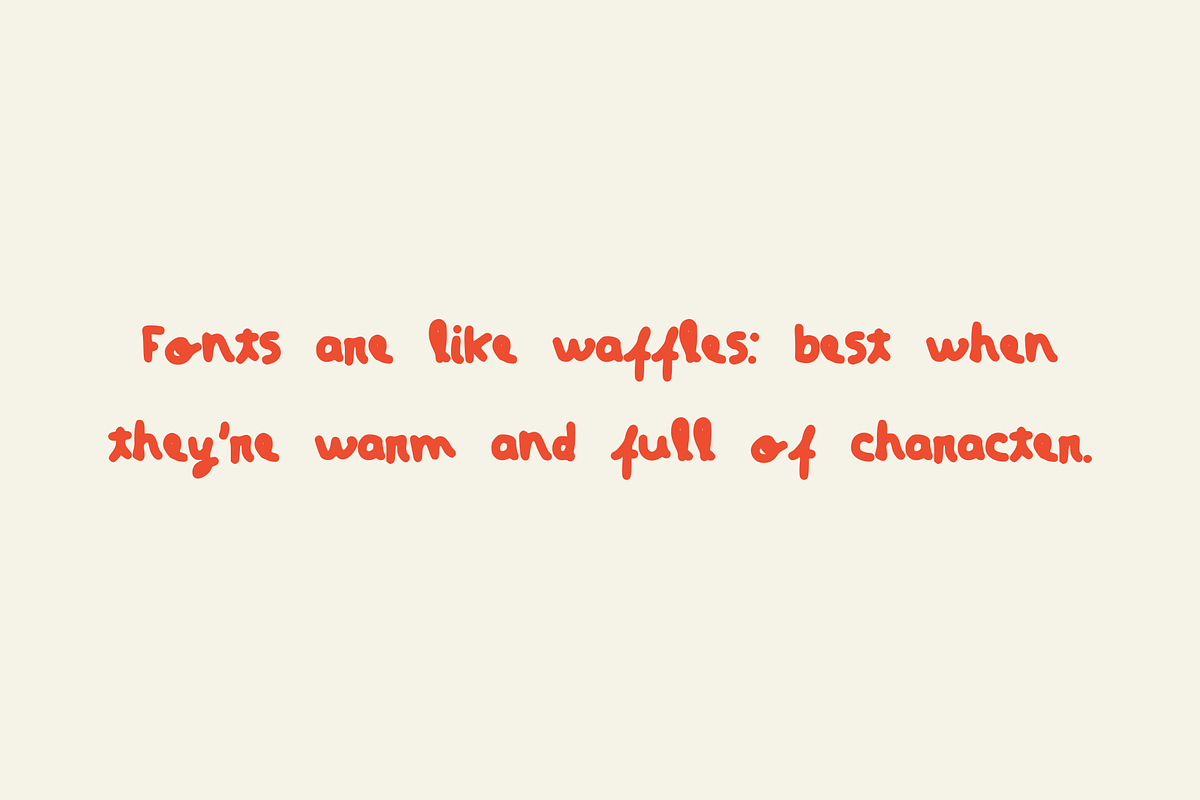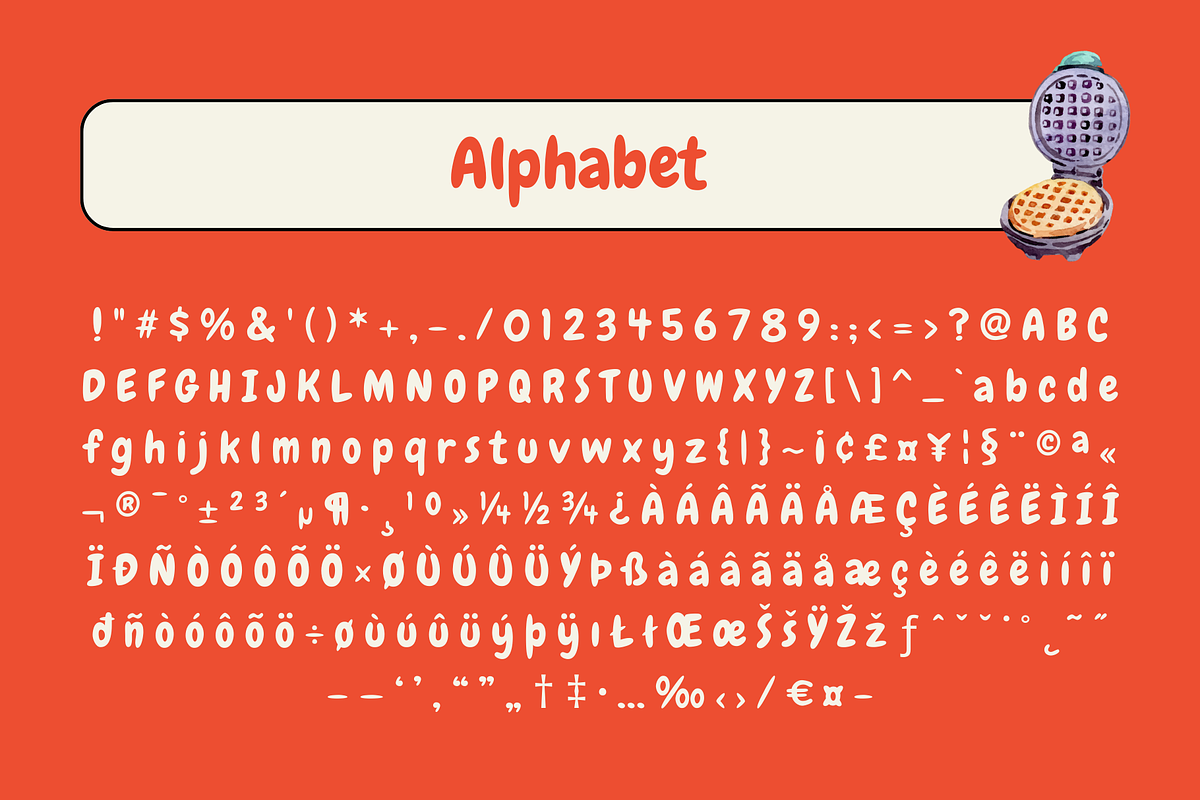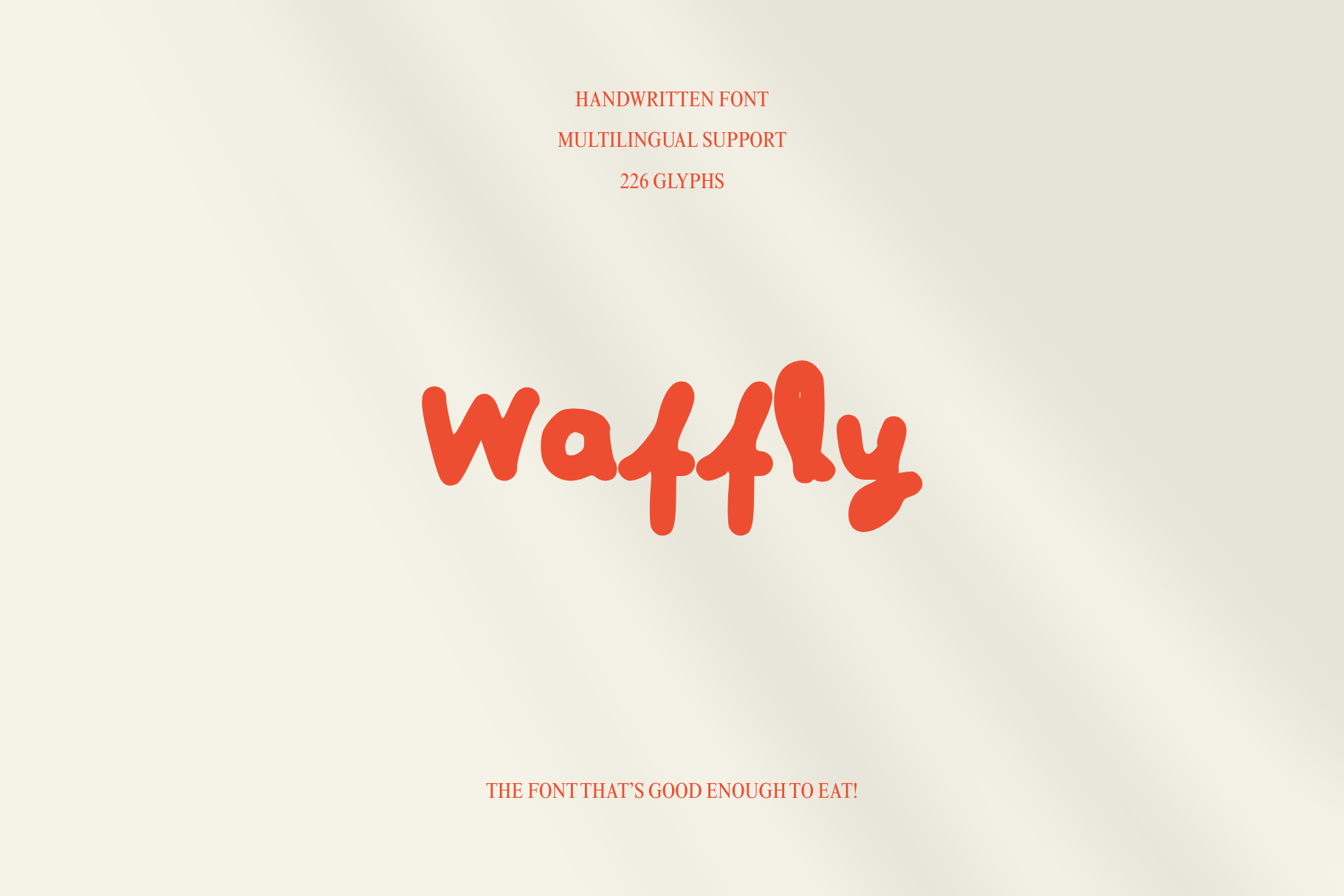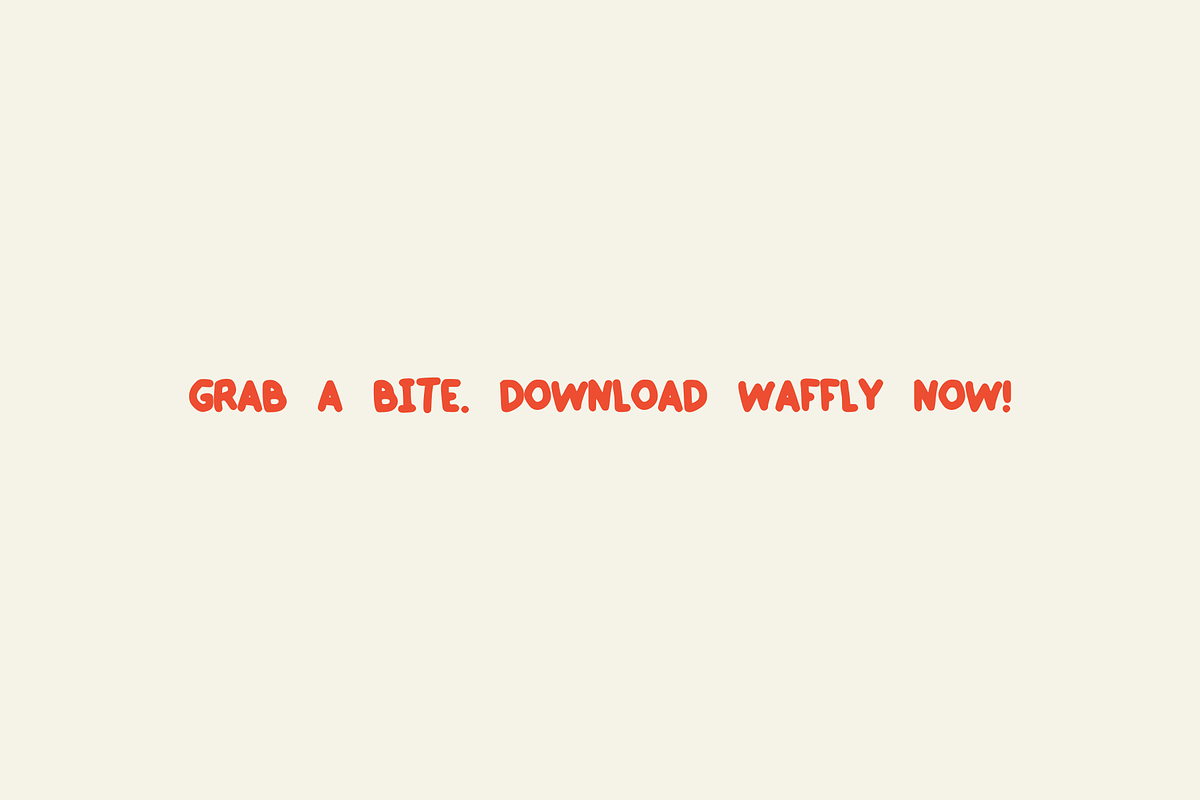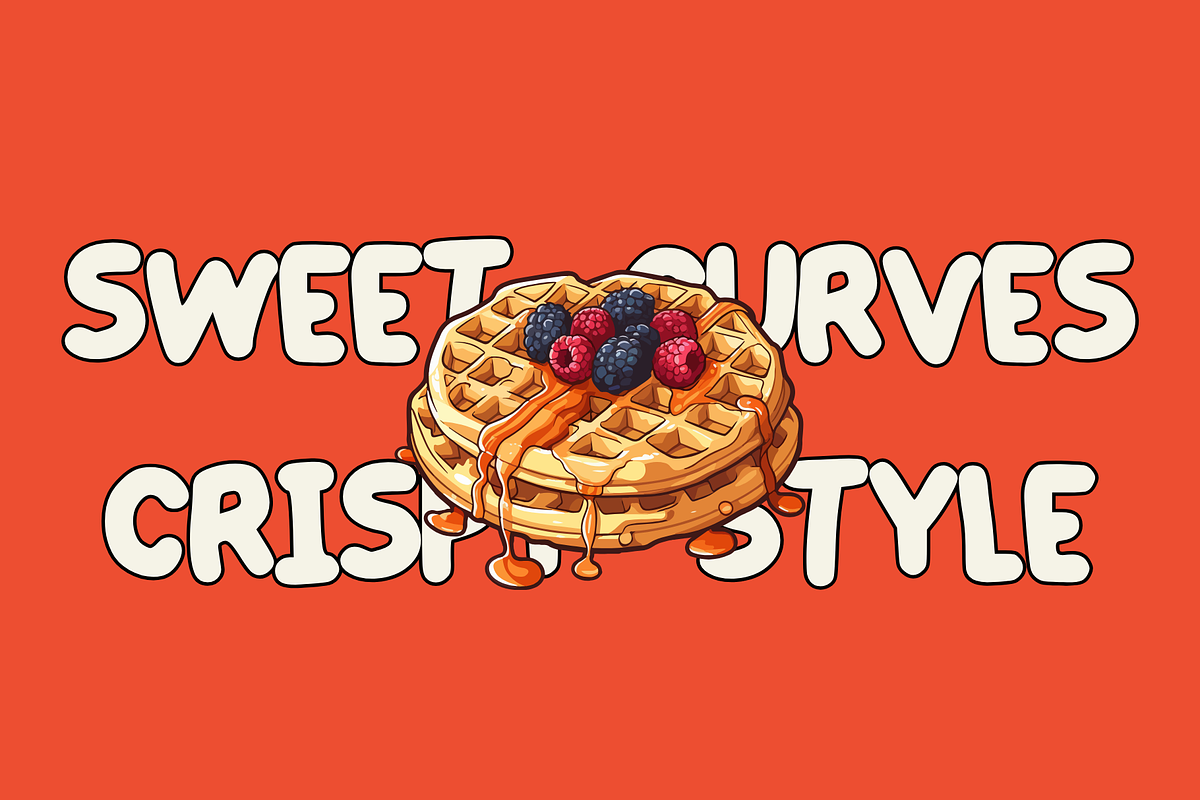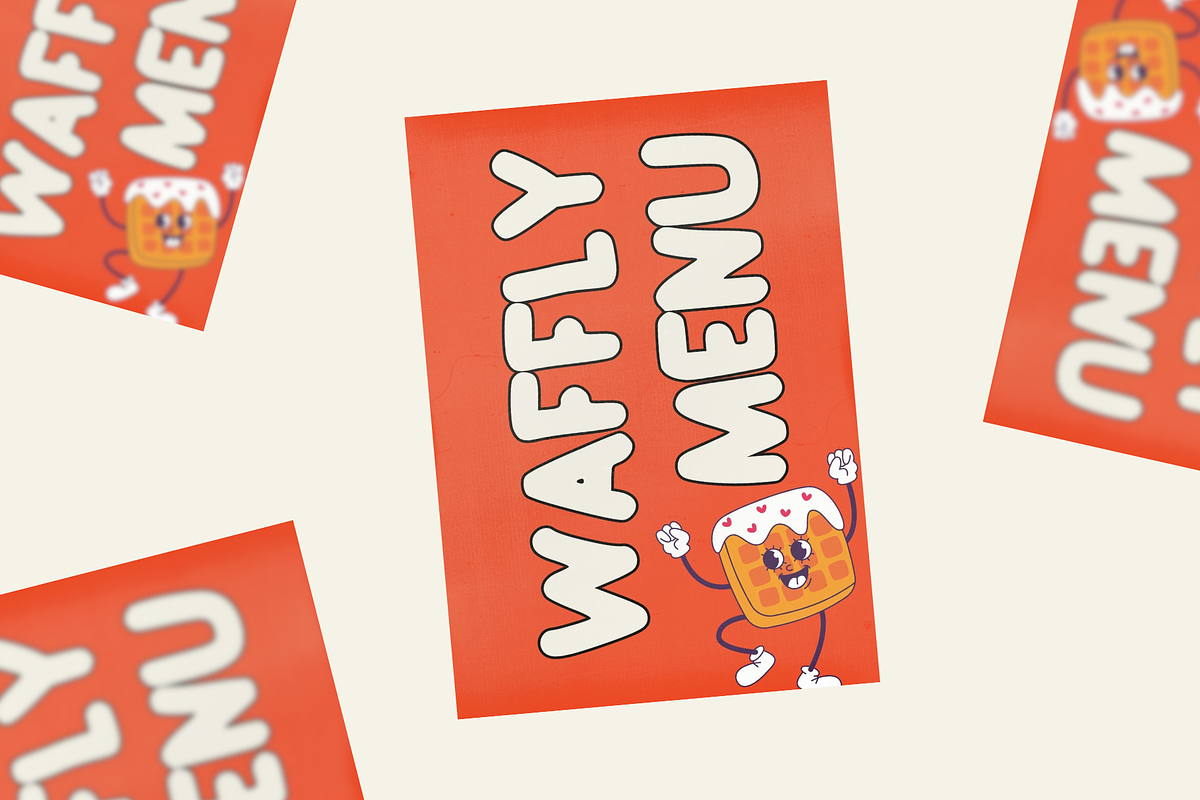
Waffly – A Sweet Handwritten Font
Say hello to Waffly – a delightfully bouncy handwritten font inspired by the cozy comfort of waffles and weekend brunches. With soft curves and 226 glyphs, Waffly adds a sweet and casual touch to any design project.
Whether you're designing for food branding, children’s books, café menus, or quirky packaging – Waffly brings warmth, fun, and personality. It also comes with multilingual support, making it perfect for global creatives with a taste for originality.
- 226 glyphs
Let your words drip with charm – Waffly is the font that’s good enough to eat!